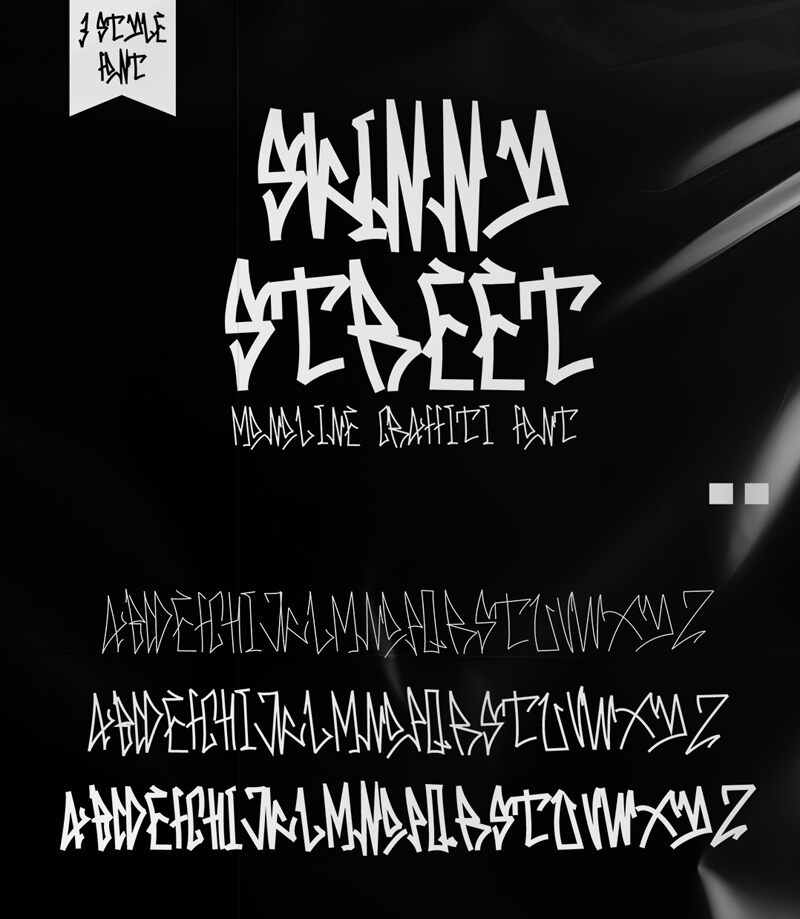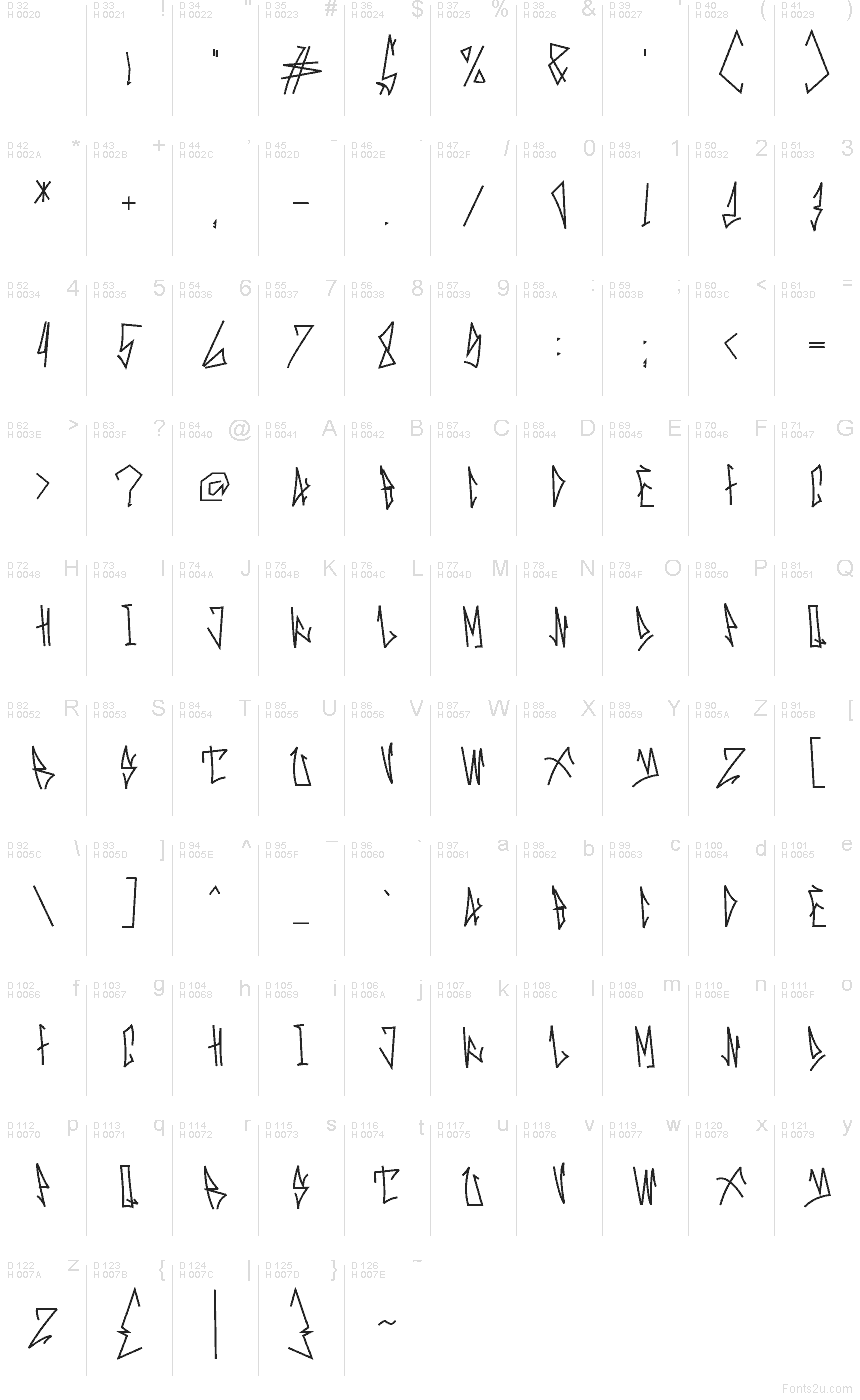
Skinny Street Medium
Skinny Street Medium font by Cikareotype Studio is a free graffiti typeface that looks like it’s been scratched onto concrete with a sharp marker. The letters are tall, wiry, and spiky, with quick, angular strokes that feel straight off a back-alley wall. Everything feels restless and hand-drawn, giving your text a raw, urban energy that’s hard to fake with cleaner, more polished styles.
Using Skinny Street Medium, you get that “illegible at first glance, unforgettable after” street-tag attitude that works beautifully for album covers, underground event posters, streetwear branding, skate graphics, zines, and YouTube thumbnails. This free font shines when it’s big and bold; pair it with a simple, neutral sans serif for body text so the Skinny Street family can do the loud talking in your headlines and logos.